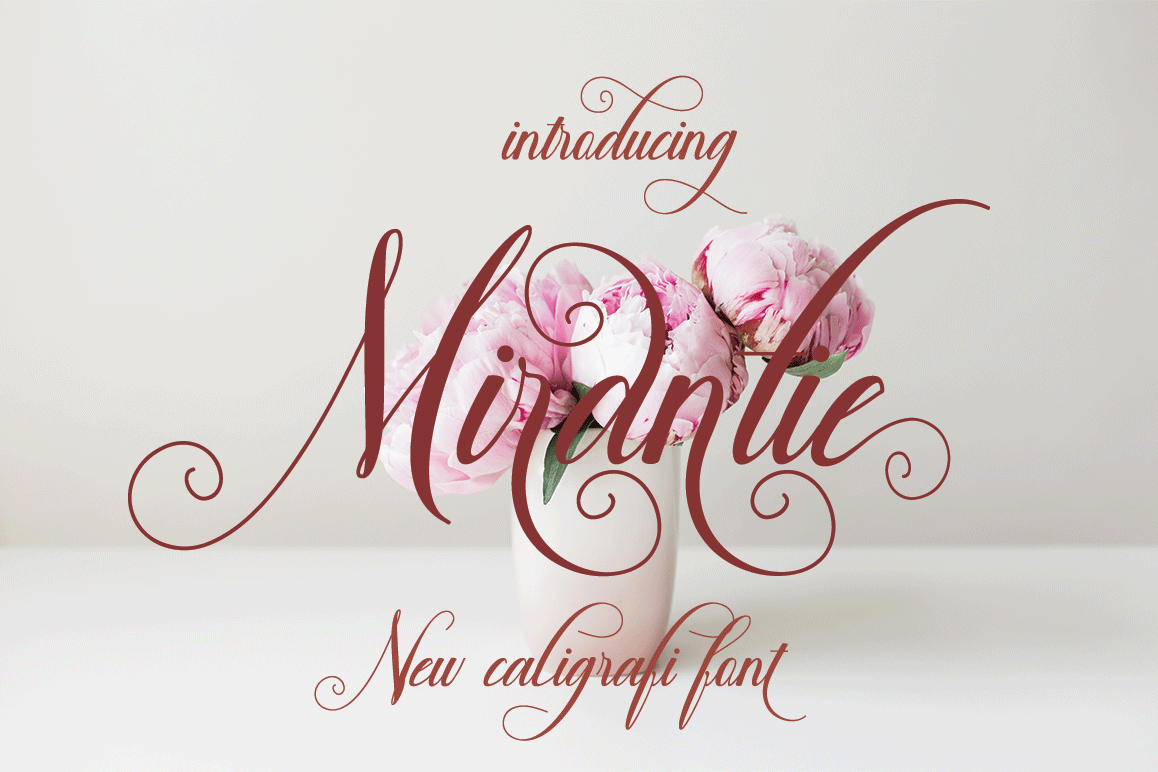
Mirantie font is new solution for a project ,present with sort of classic decorative copperplate script with a modern twist. It is a display font meant for vintage logos, fashion labels, badges, food packaging designs, especially wine labels. Actually a lot of good wine was consumed while crafting this type :) . Also I offer a decent amount of stylistic alternatives for many letters.